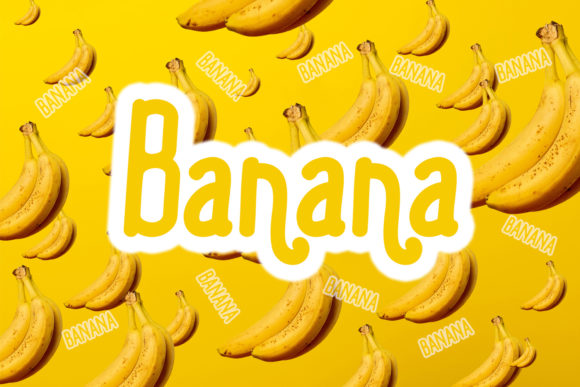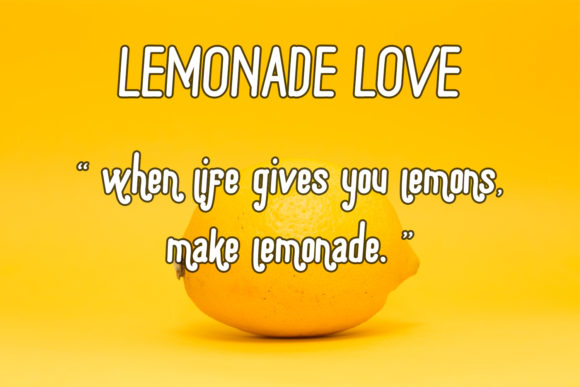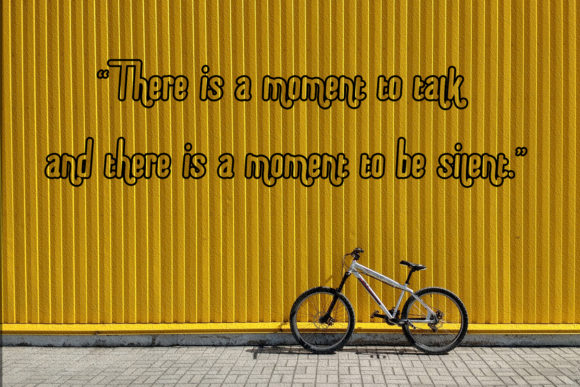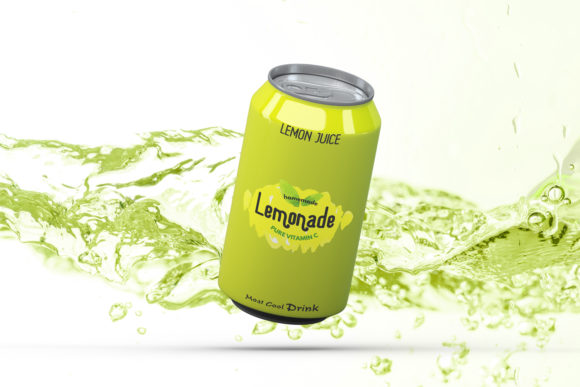
Introduction to Moons Font
Have you ever been working on a creative project and suddenly, everything clicks into place? The colors, the typography, the entire vibe – it all comes together in perfect harmony. For designers, this moment is like finding a hidden treasure, and it’s exactly what happens when you discover the Moons Font.
This beautiful san serif font is a game-changer for any design project. With its classy, elegant, and modern look, it’s the perfect addition to logos, branding, invitations, stationery, wedding designs, and social media posts. And the best part? It’s a high-quality design resource that’s available for free download, complete with a transparent background for seamless integration.
Whether you’re a seasoned pro or just starting out, Moons Font is an invaluable asset that will elevate your designs and leave a lasting impression on your audience.
Key Features of Moons Font
- High-quality, elegant design ideal for creative projects requiring a sophisticated look.
- Designed with a unique, hand-drawn style that sets it apart from other fonts.
- Perfect for use in graphic design, digital art, and any other creative project requiring a high-end font.
Honest Review: Moons Font
As a designer, I’m always on the lookout for high-quality fonts that can elevate my creative projects. I recently came across Moons Font, and I’m excited to share my honest review.
- The font’s high-quality design makes it perfect for various creative projects, from logos to typography-based art.
One of the standout features of Moons Font is its unique, celestial-inspired design. It adds a touch of whimsy and sophistication to any project, making it a great choice for designers looking to create something truly special.
- The font may not be suitable for projects that require a more traditional or formal look.
Overall, I’m impressed with Moons Font, and I think it’s a great addition to any designer’s toolkit. While it may have some limitations, its unique design and high-quality construction make it a valuable resource for any creative project.
Tips for Getting the Most Out of Moons Font
To get the most out of Moons Font, use it in conjunction with a transparent background to create a seamless design. You can also experiment with different font sizes and colors to enhance the visual appeal of your design project.
Moons Font is a versatile design resource that can be used in a variety of creative projects, including logo designs, branding materials, and marketing materials. Its high-quality design makes it an ideal choice for designers looking for a unique and creative font.